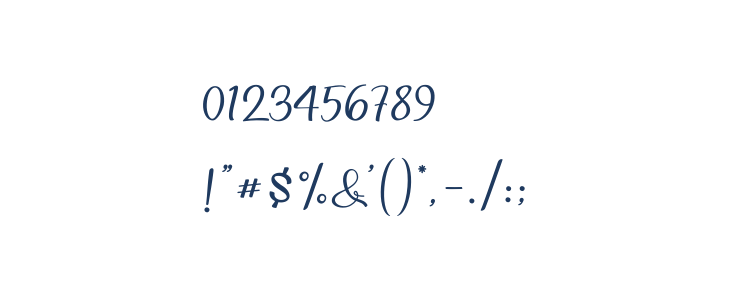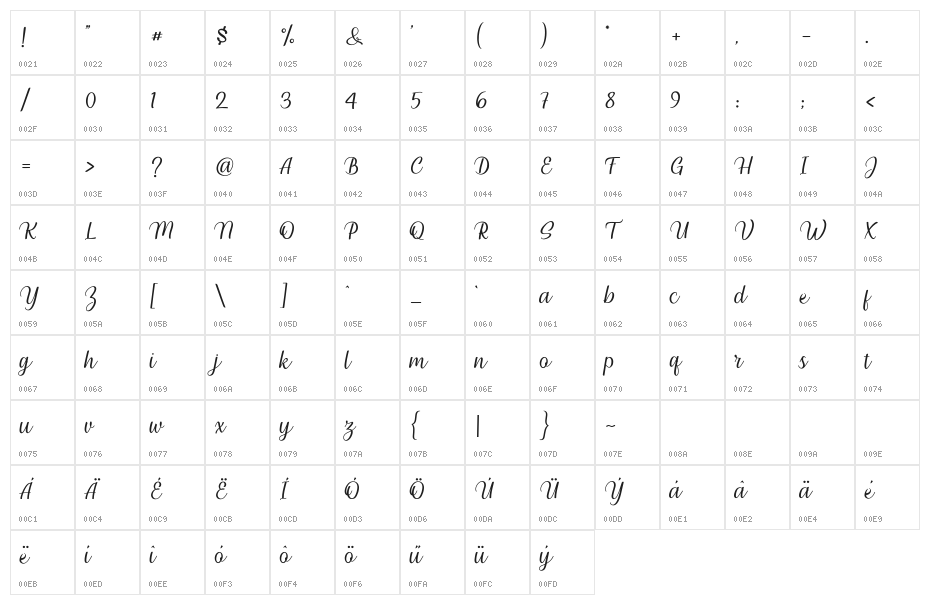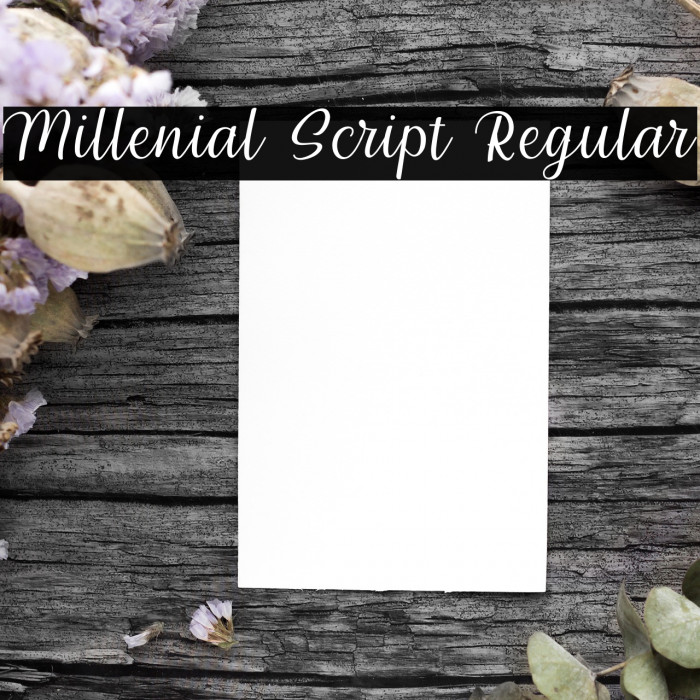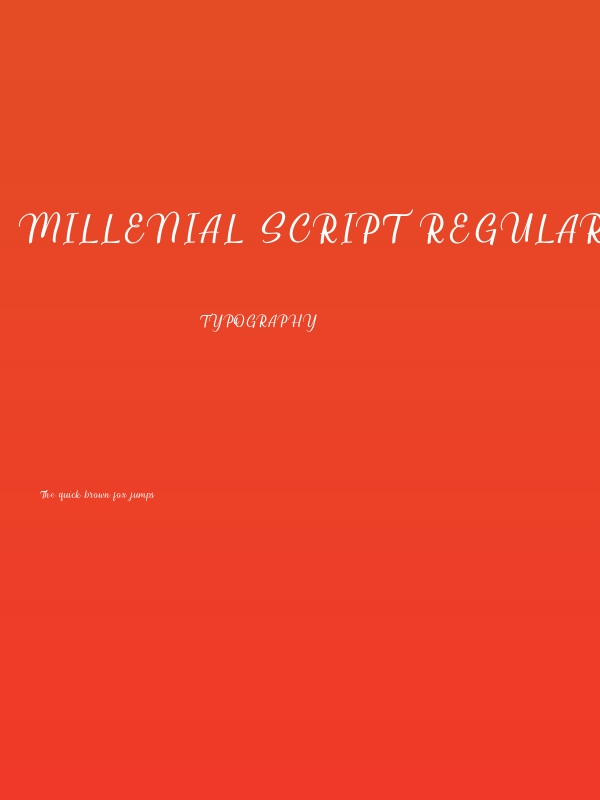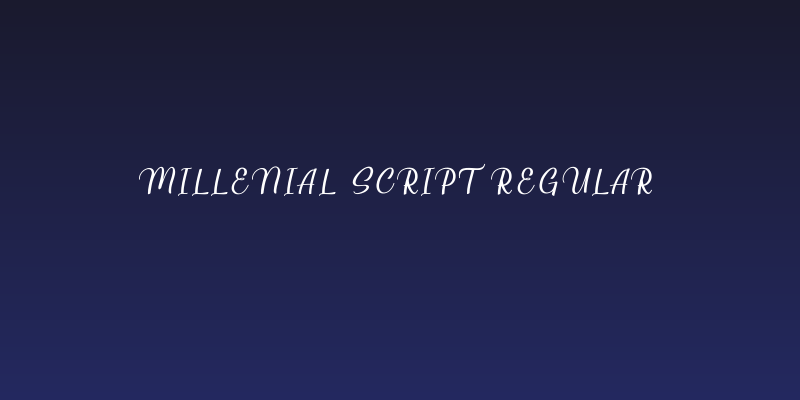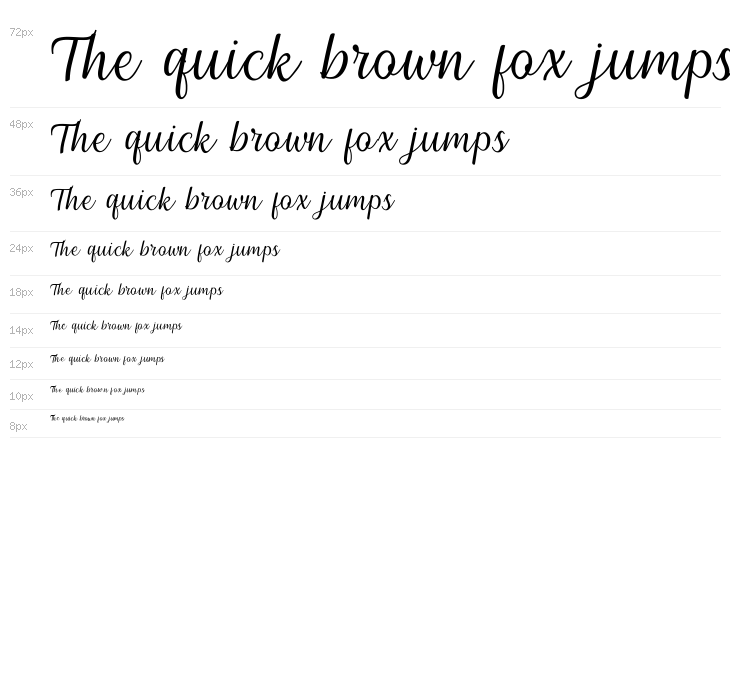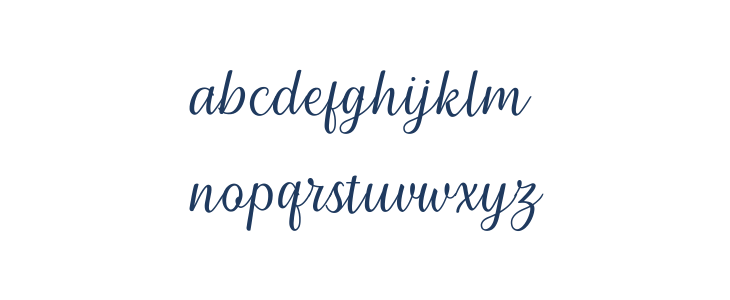
Millenial Script Regular Font
Millenial Script Regular Description
This elegant script font features a flowing, cursive style with smooth, rounded edges and a consistent stroke width. The uppercase letters are slightly more ornate, with graceful loops and swashes that add a touch of sophistication. The lowercase letters maintain a cohesive look, with gentle curves and a natural, handwritten appearance. The numerals are clear and easy to read, matching the overall aesthetic of the font. Special characters are thoughtfully designed to complement the letterforms, ensuring a harmonious look across all text. This font exudes a sense of elegance and charm, making it ideal for projects that require a personal, yet polished touch.